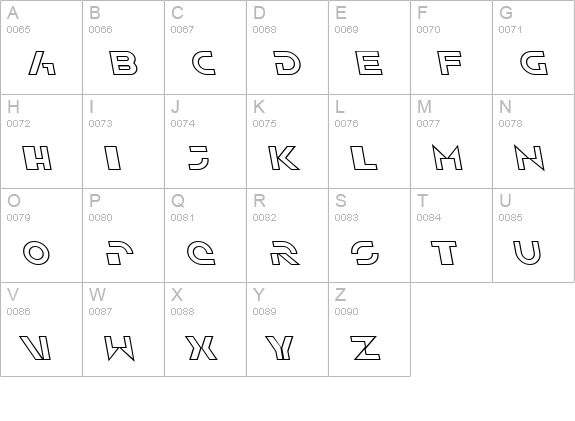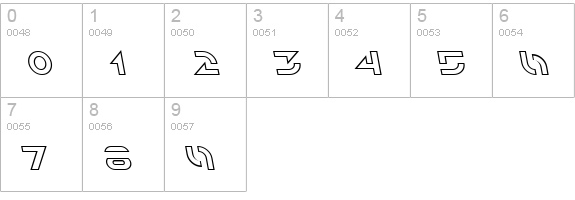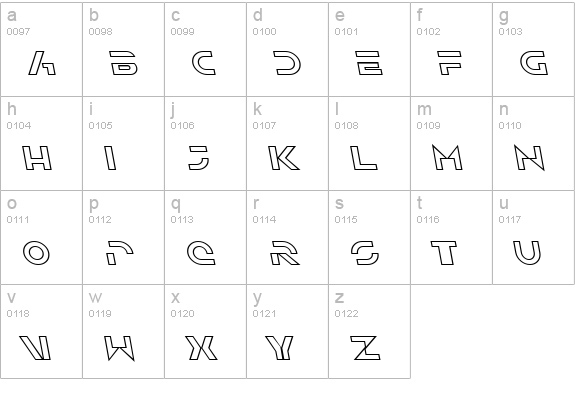
SF Solar Sailer Outline Italic Font Details
SF Solar Sailer Outline Italic is a distinctive, italic variant in the SF typeface family \xE2\x80\x94 well suited to design and typography projects.
SF Solar Sailer Outline Italic font is a stunning display typeface that captures the essence of futuristic design with its sleek lines and dynamic shapes. This font is perfect for projects that require a touch of sci-fi, space exploration, or cutting-edge technology. With its unique and eye-catching italic style, SF Solar Sailer Outline Italic font adds a sense of movement and energy to any text. Whether you are designing a poster, logo, website, or any other creative work, this font will undoubtedly make a bold statement. One of the standout features of SF Solar Sailer Outline Italic font is its versatility. It can be used for both headings and body text, making it suitable for a wide range of design applications. It is also highly legible, ensuring that your message comes across clearly to your audience. What sets SF Solar Sailer Outline Italic font apart from other fonts is its availability for free download at FontsMarket.com. This means that you can freely access this incredible font without any restrictions, allowing you to bring your creative vision to life without any additional cost. The SF Solar Sailer Outline Italic font is perfect for designers, creatives, and enthusiasts who are looking to add a touch of modernity and sophistication to their projects. Its futuristic aesthetic and dynamic nature make it a must-have for anyone seeking to push the boundaries of design. So why wait? Download SF Solar Sailer Outline Italic font today from FontsMarket.com and unlock the limitless possibilities that this font brings to your creative endeavors. Whether you are designing for print or digital media, this font will undoubtedly elevate your work to new heights. Get ready to impress and captivate your audience with the stunning SF Solar Sailer Outline Italic font.